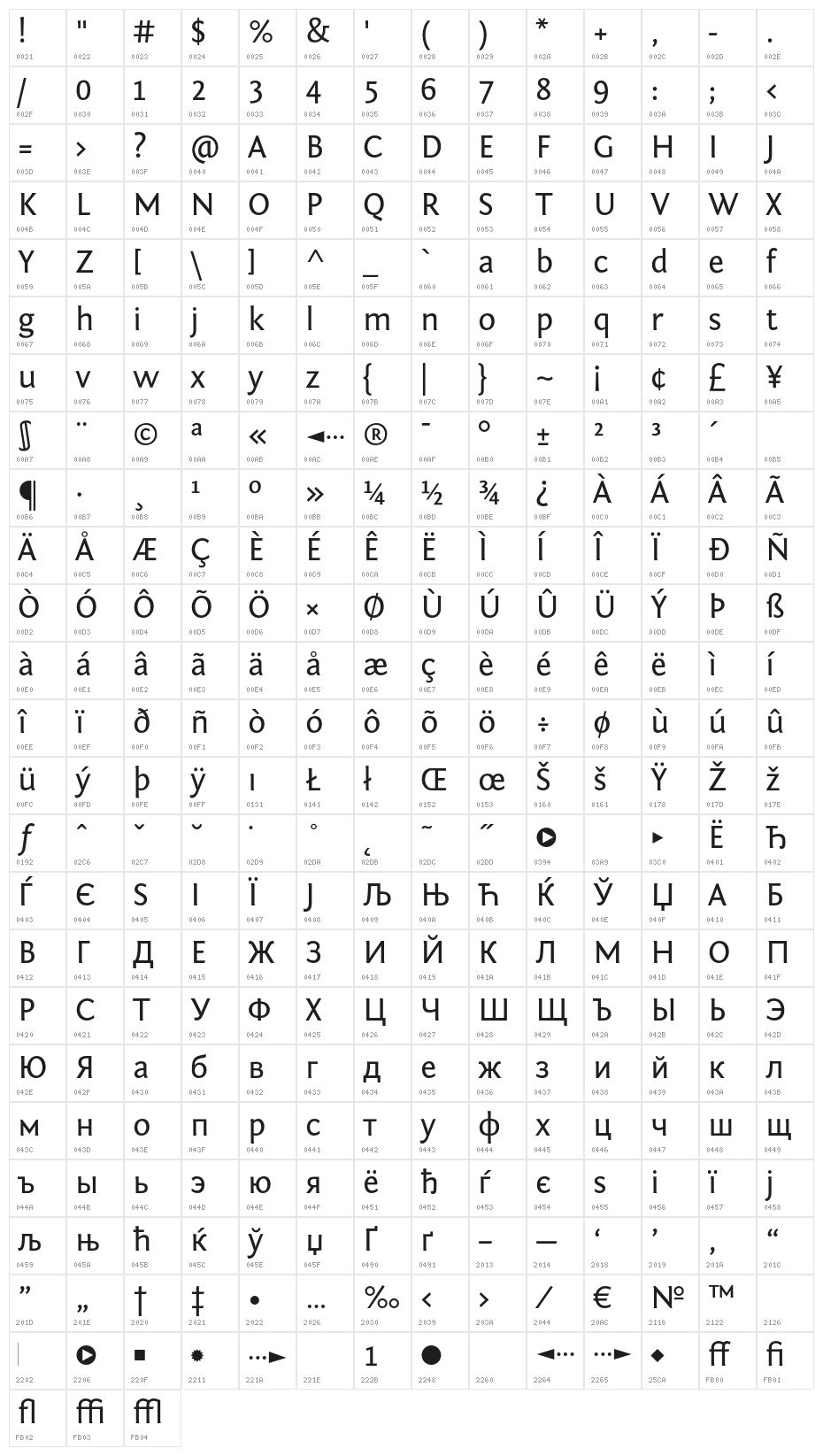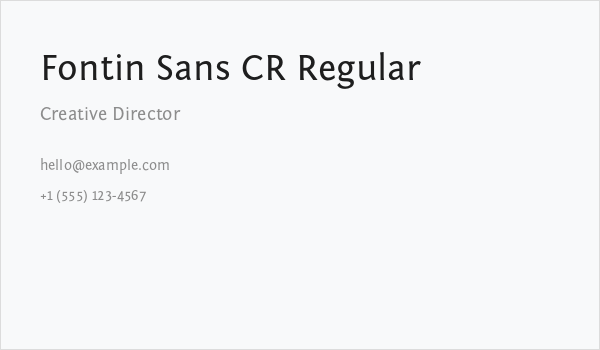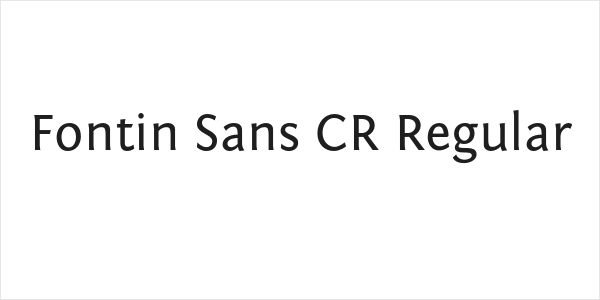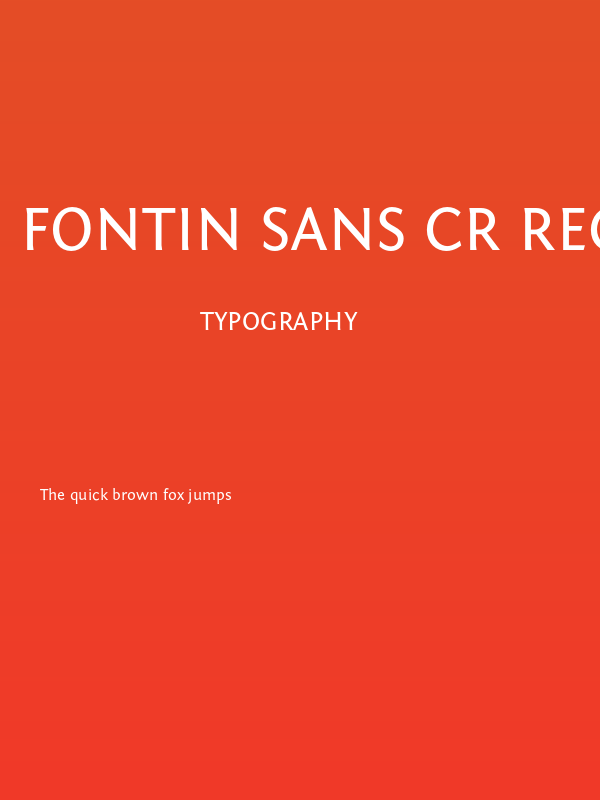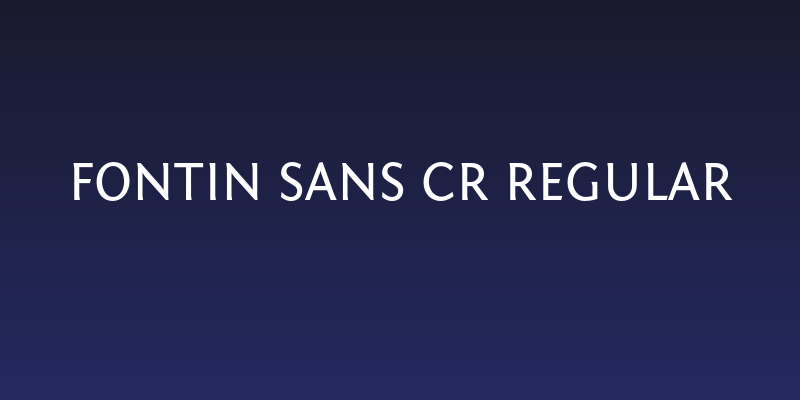
Fontin Sans CR Regular Font
Fontin Sans CR Regular Description
This font features a clean and modern sans-serif design, characterized by its simplicity and readability. The uppercase letters are bold and well-defined, while the lowercase letters maintain a consistent and harmonious flow. The numerals are clear and distinct, making them easily legible. Special characters are designed with precision, ensuring they complement the overall aesthetic. The font's structure is balanced, with even stroke widths and a uniform appearance, making it suitable for a wide range of applications. Its versatility allows it to be used in both digital and print media, providing a professional and polished look.